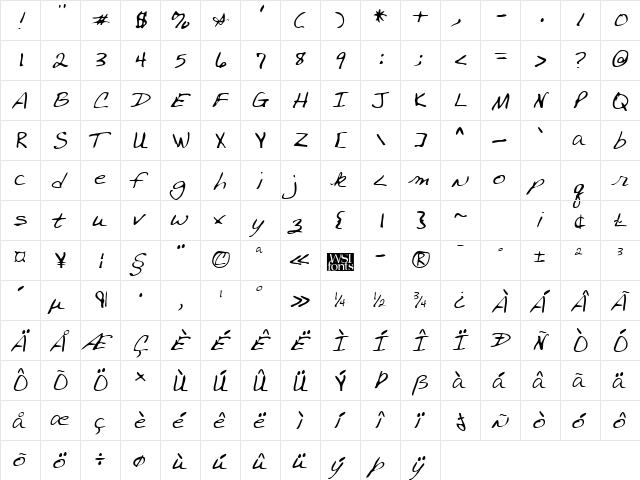
MichaelsHand Regular
Design Context for MichaelsHand Typeface
MichaelsHand brings a calligraphic fluidity to the page — its connecting strokes and expressive curves give it an unmistakably human quality.
Font Pairing: Combine MichaelsHand with a simple geometric sans for maximum contrast — the tension between flowing curves and clean structure is a classic typographic pairing.
Pro Tip: Use MichaelsHand for short runs of text — names, titles, or taglines. Extended body copy in script faces tires the eye quickly.